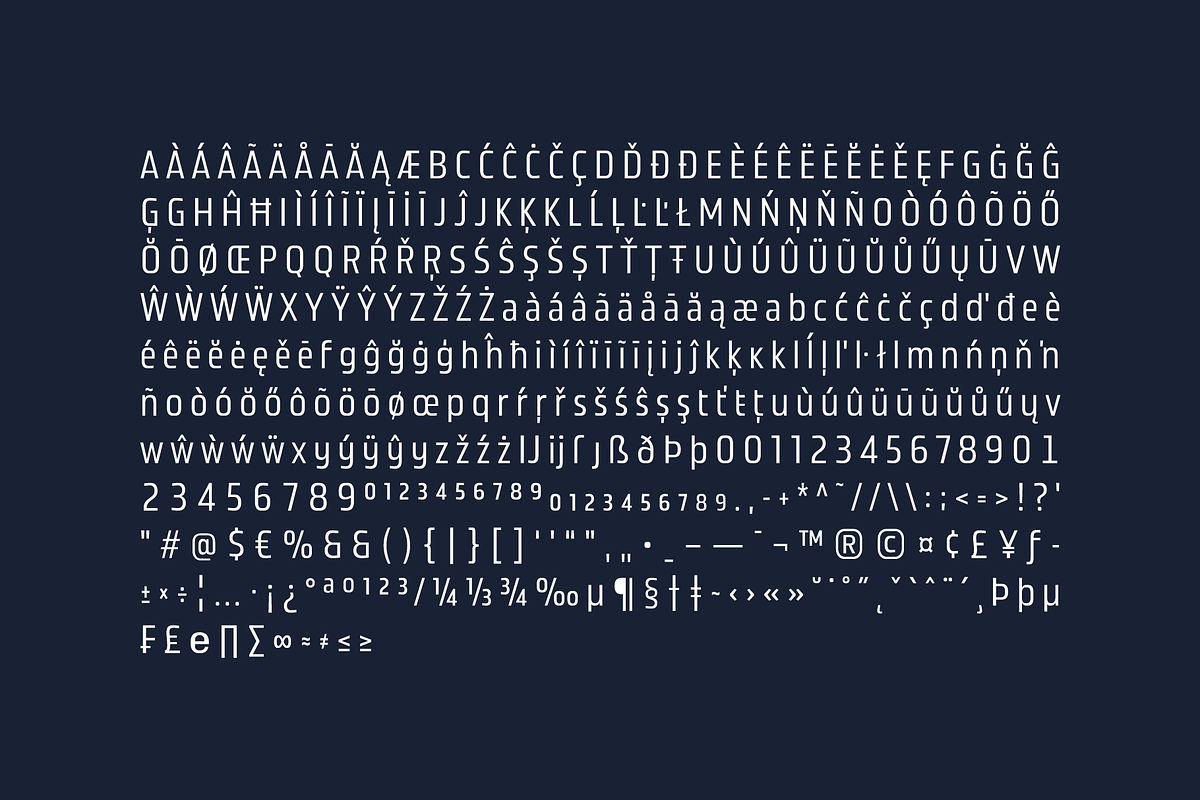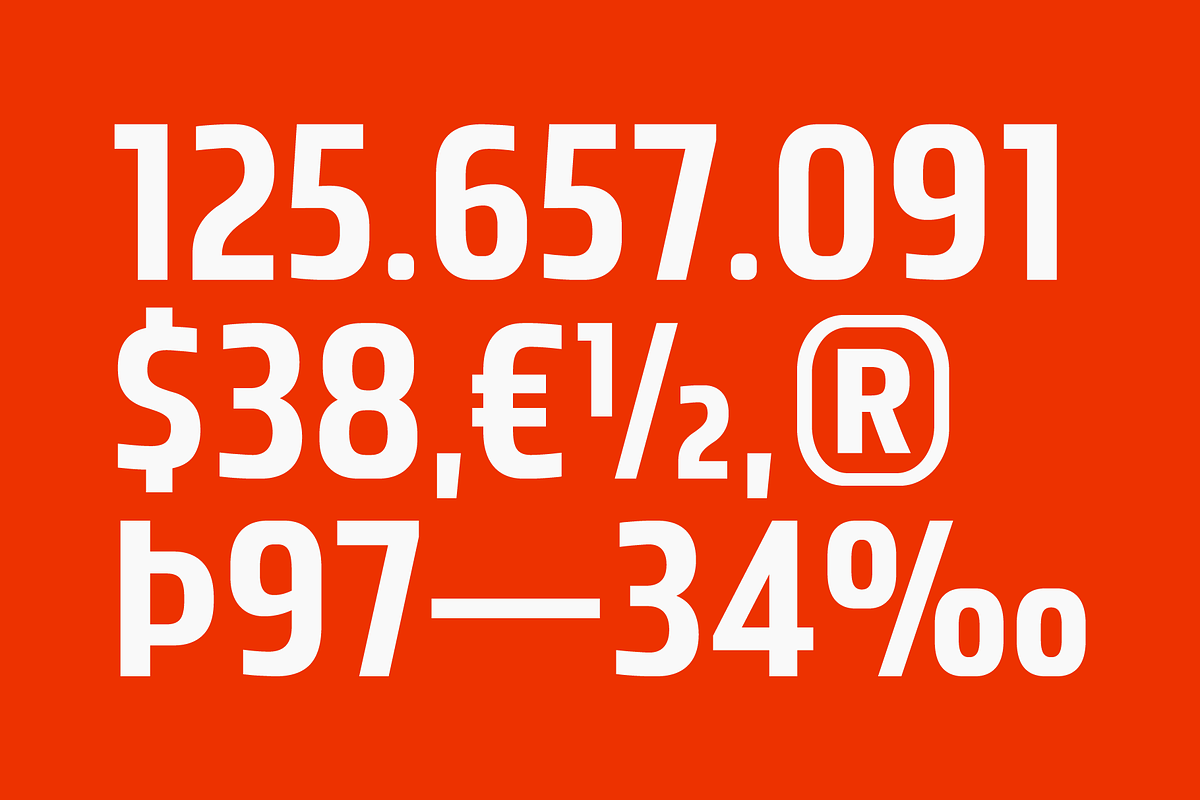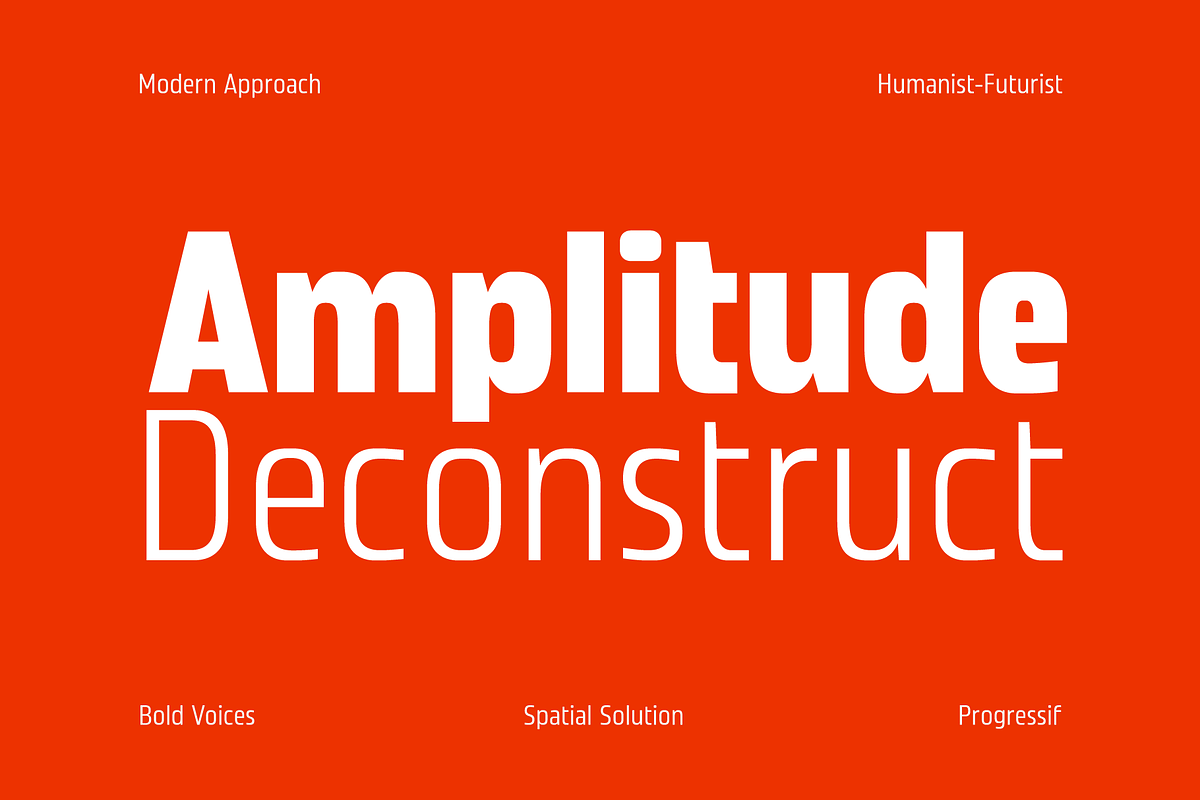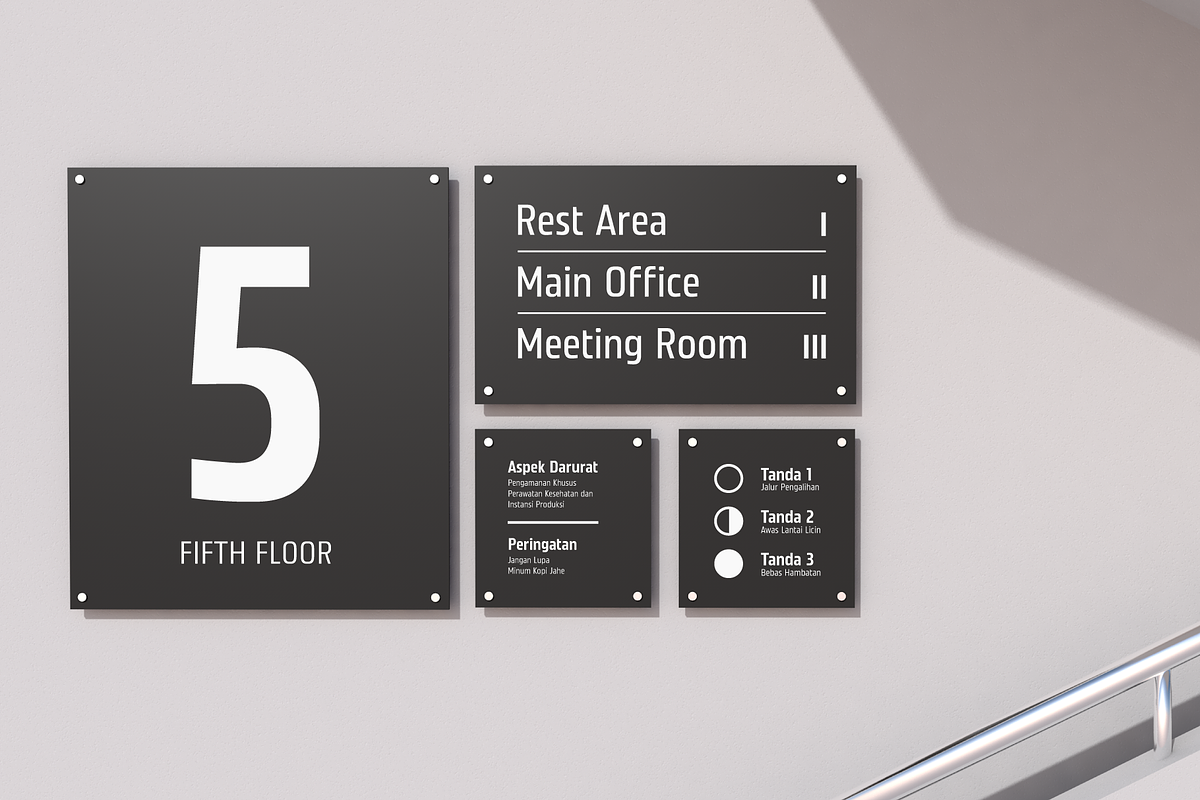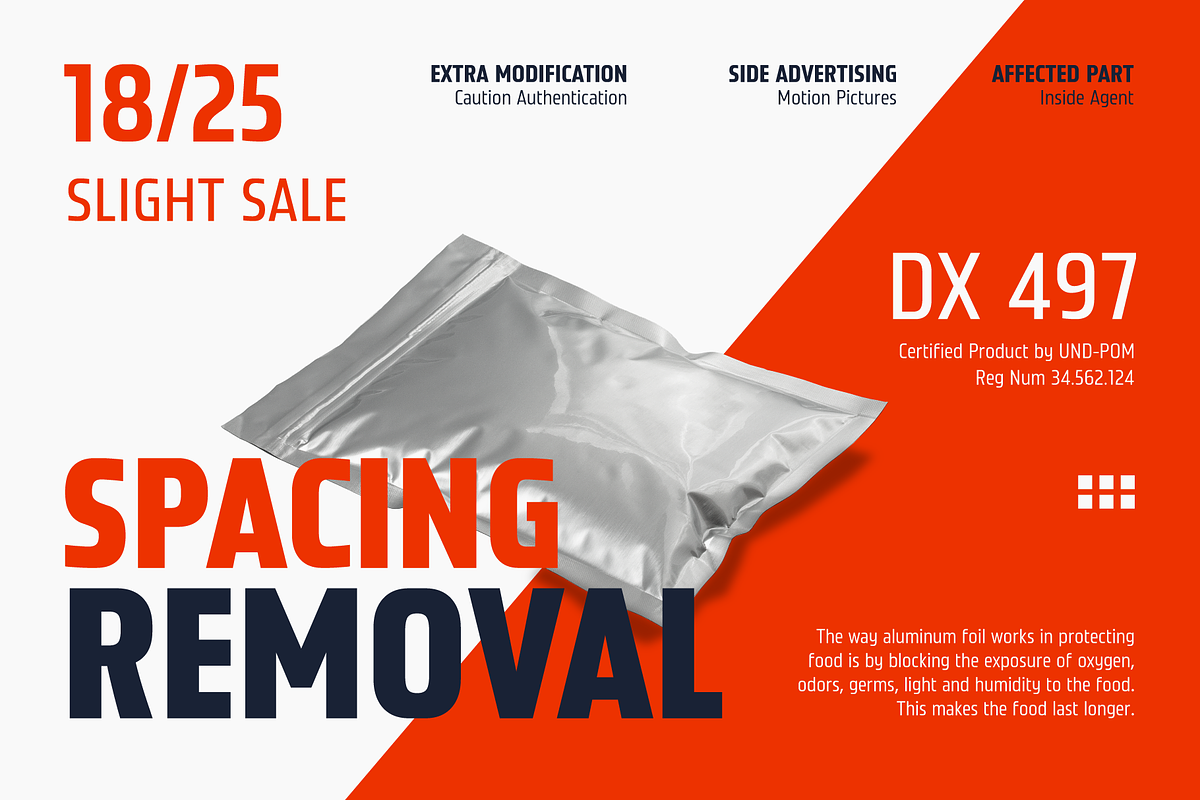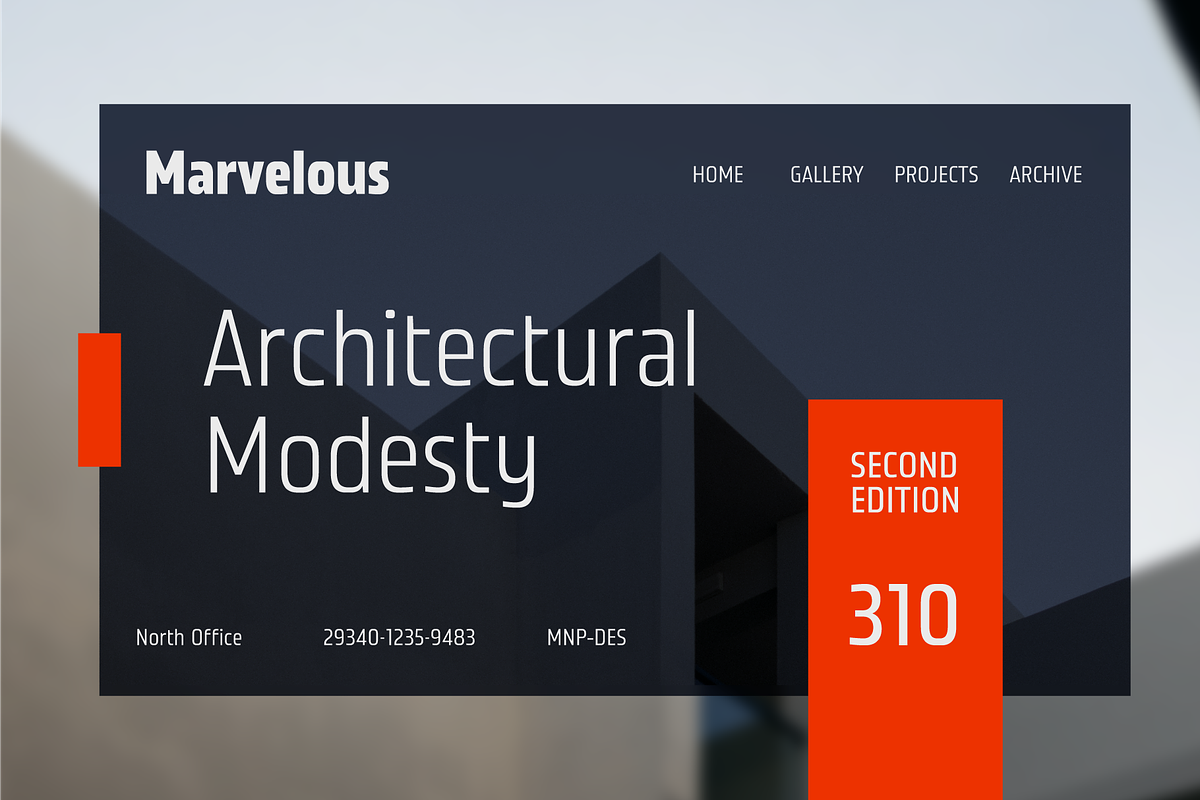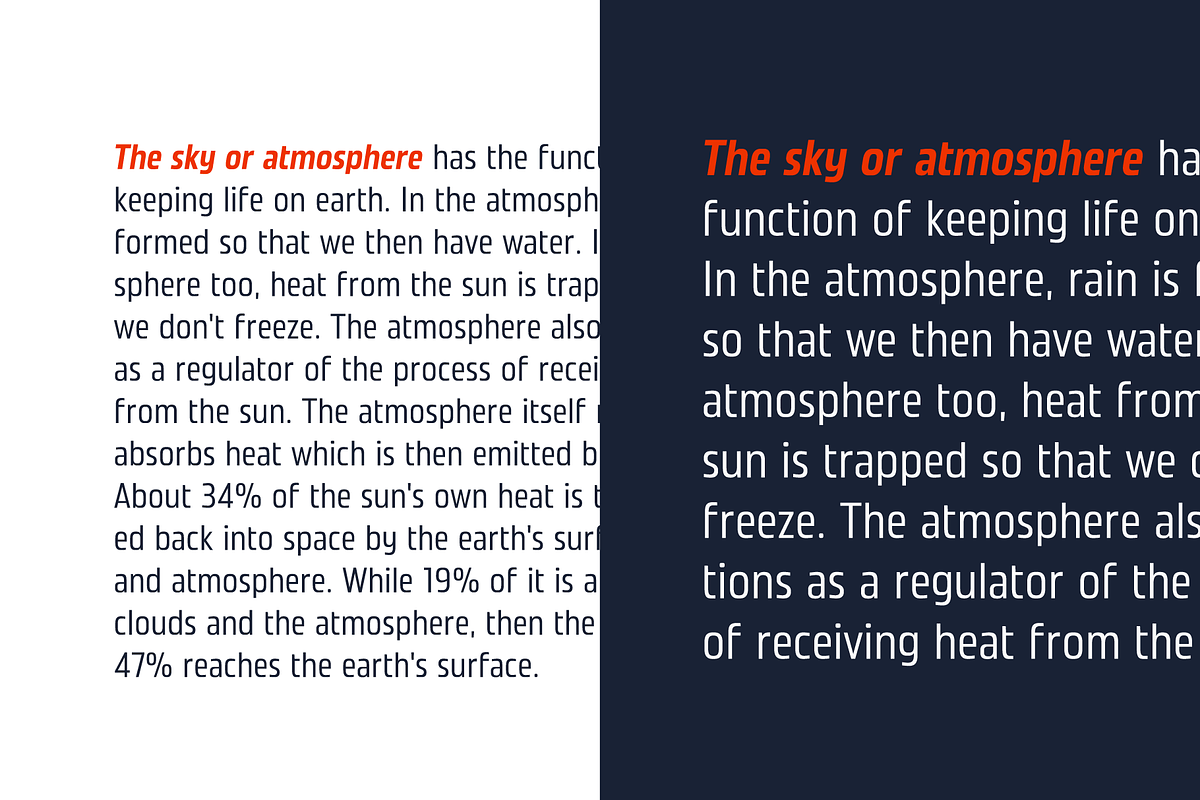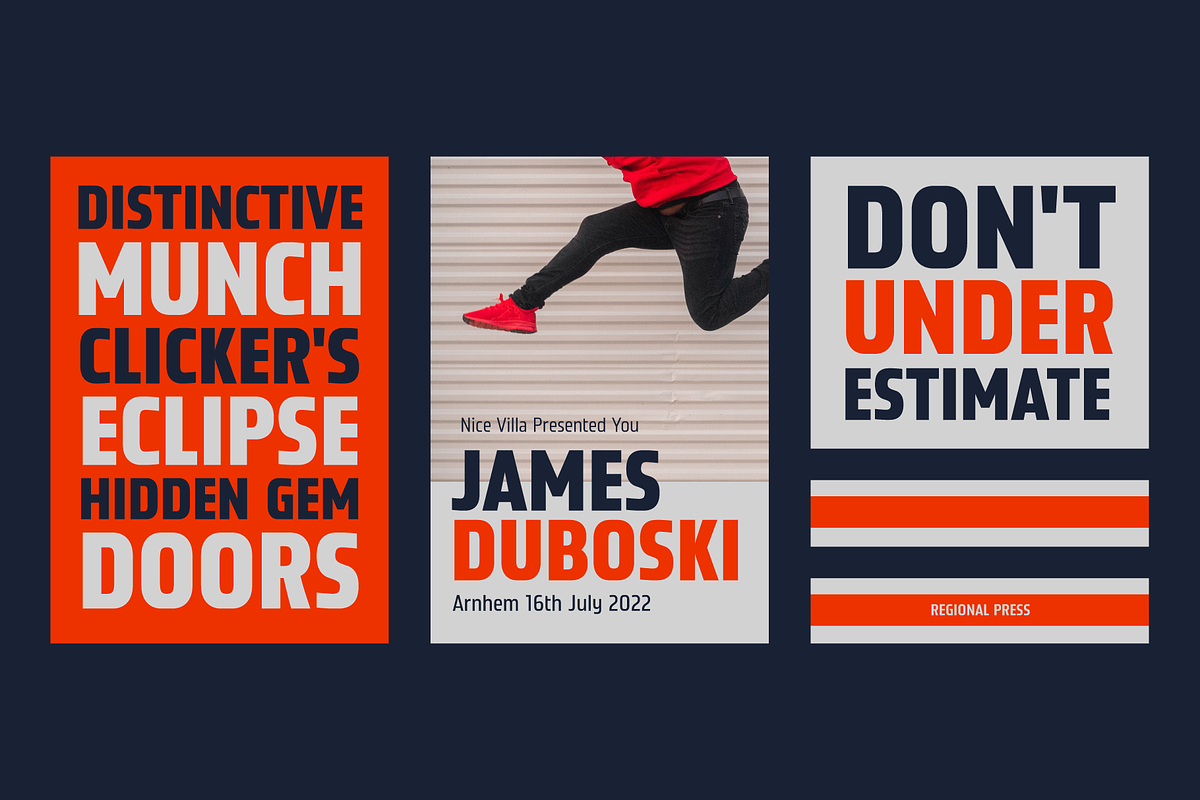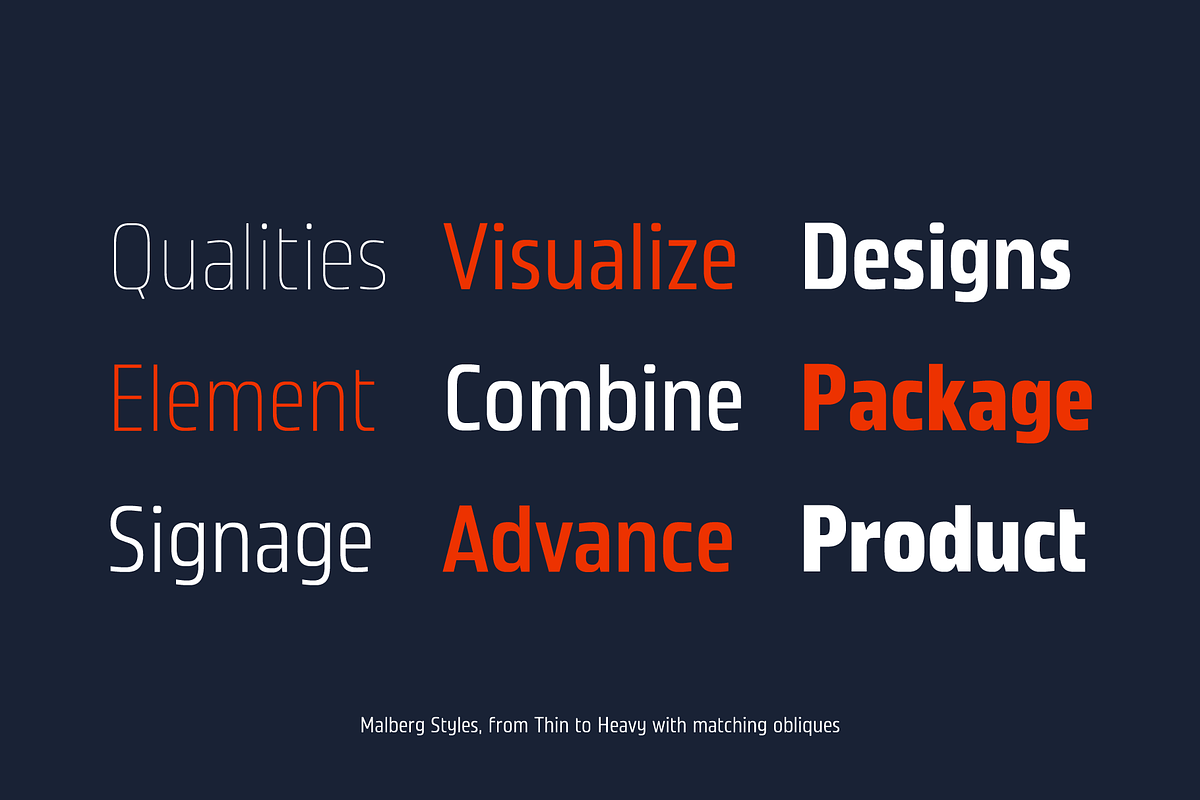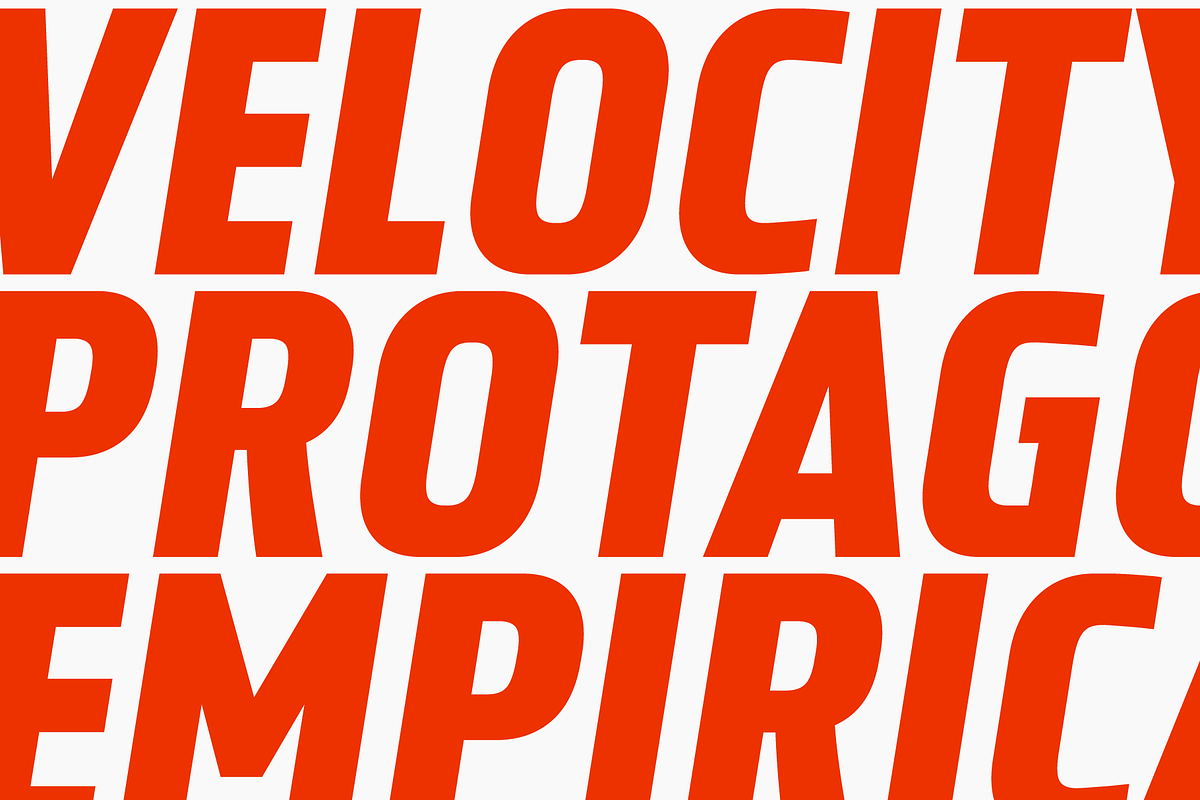
Malberg; Condensed Sans Family
Malberg is condensed sans serif family. Consist of 9 styles from thin to heavy with matching obliques. Fit for display and short text for various design purposes including brand identity, web design, poster design and other crative and design needs.